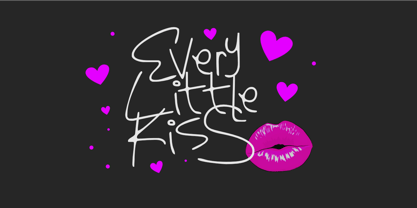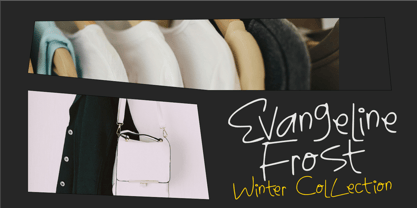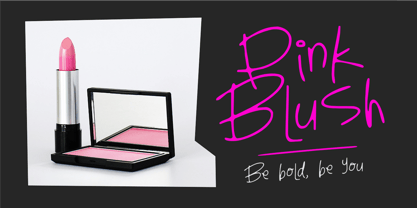
Every Little Kiss
by Epiclinez
The Every Little Kiss Font Family was designed by Aldy Sidik and published by Epiclinez. Every Little Kiss contains 1 styles.
Every Little Kiss Font is a sweet, romantic handwritten typeface that captures the warmth of love and the charm of every tender moment. With its smooth curves, soft strokes, and natural pen flow, this font feels like a love note written by hand. It’s perfect for wedding invitations, greeting cards, logos, quotes, journals, packaging, and any design that needs a heartfelt personal touch. Each letter of Every Little Kiss carries gentle emotion — a blend of playfulness and sincerity that makes your words feel alive. Whether you’re designing for a romantic brand, a lifestyle blog, or a cozy handmade product, this font will add a touch of affection and authenticity to your project. Let your designs whisper love, one kiss at a time.